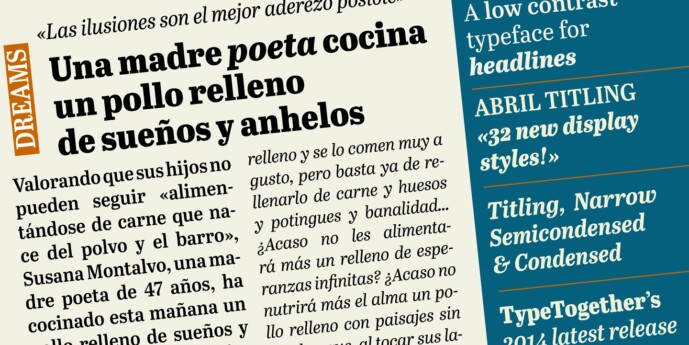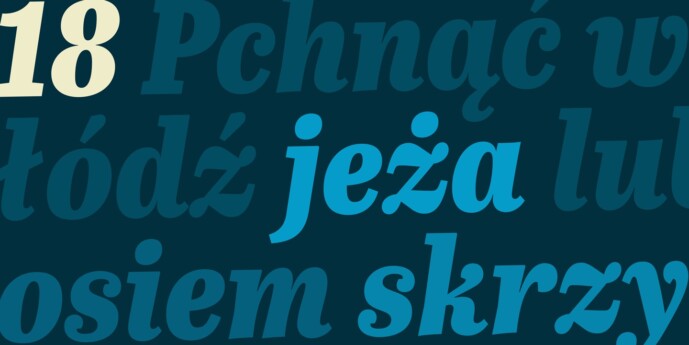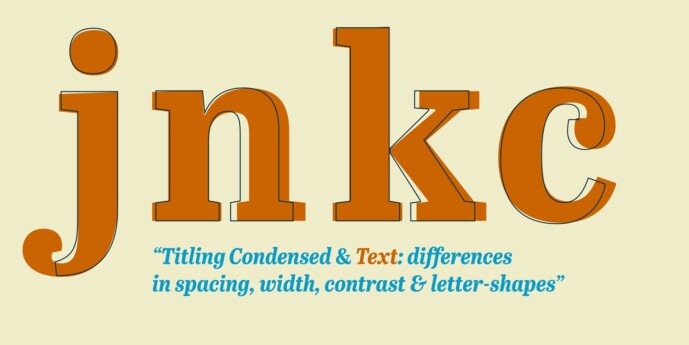
Abril Titling Font Family
Abril Titling Font Family is an extension of the Abril type system that was designed to meet a very specific demand from the publishing community: a low-contrast typeface for heading lines. Given its wide range of styles, however, Abril deserves to be considered as a separate font family. Based on the original Abril text styles, the letterforms are robust, highly legible, and convey a sense of novelty and confidence. The strong editorial style of Scotch Roman is continued in this new typeface family, but some details have been smoothed out to improve headline performance, both in print and on screen. The family is designed as four series of different widths, with four weights in each series plus corresponding italics, for a total of 32 fonts. This wide range of styles allows headlines of almost any size. The wider series are intended for smaller point sizes, while the condensed weights can give a striking and consistent look to cover titles. Abril was designed as a versatile tool for graphic and web designers looking for a high-impact work tool. It is also a great companion to the rest of the Abril typeface family: Abril Titling and Abril Narrow.